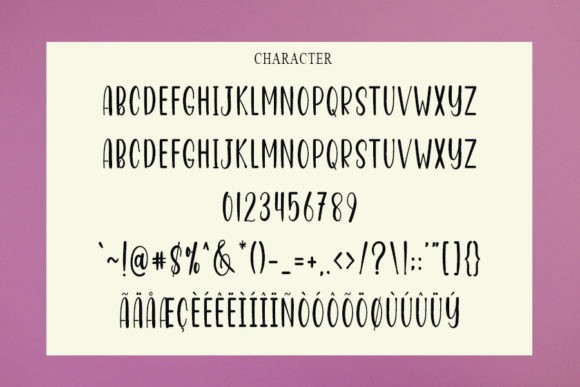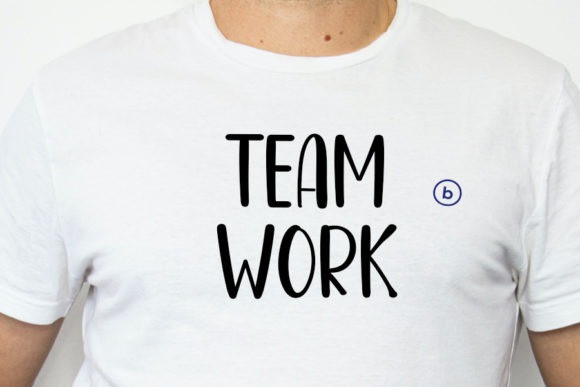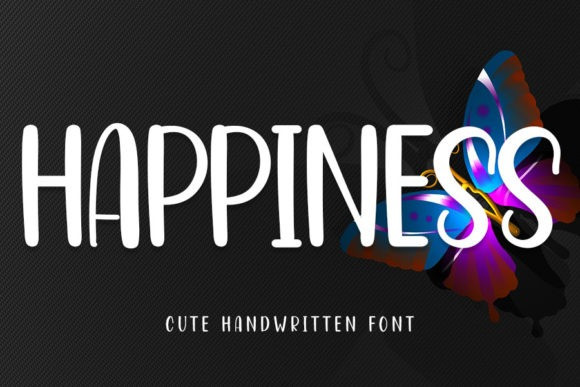
Happiness Font
Happiness Cute Font is a ravishing handwritten font, masterfully designed to become a true favorite. It is the best choice for creating eye catching logos, branding and quotes. Every letter has a unique and beautiful touch, which will make your design come alive!